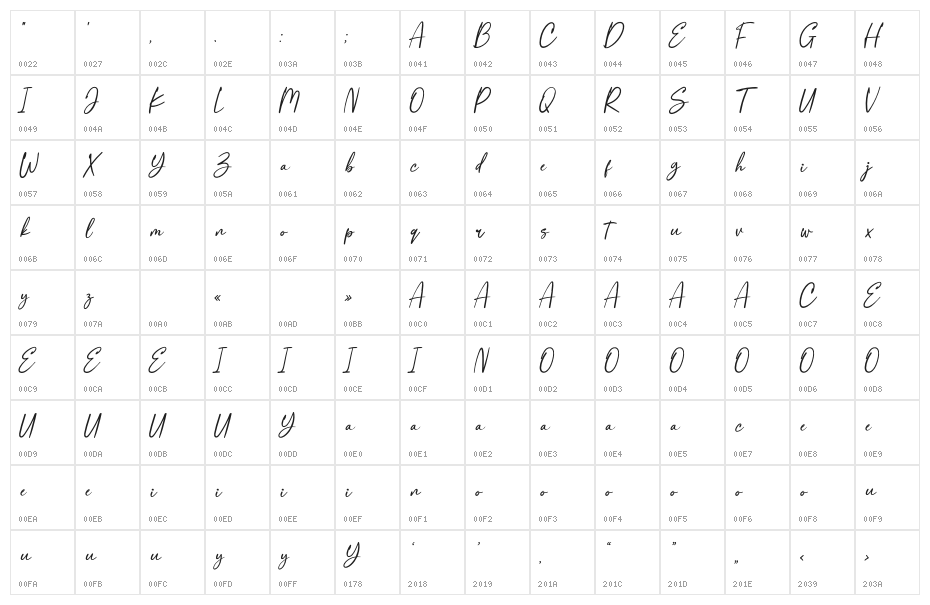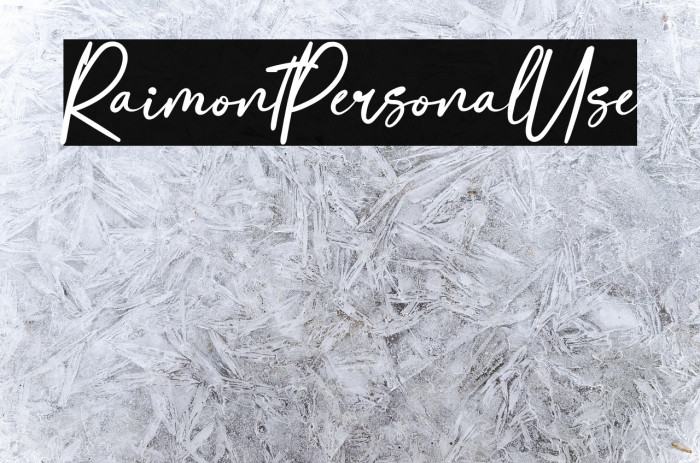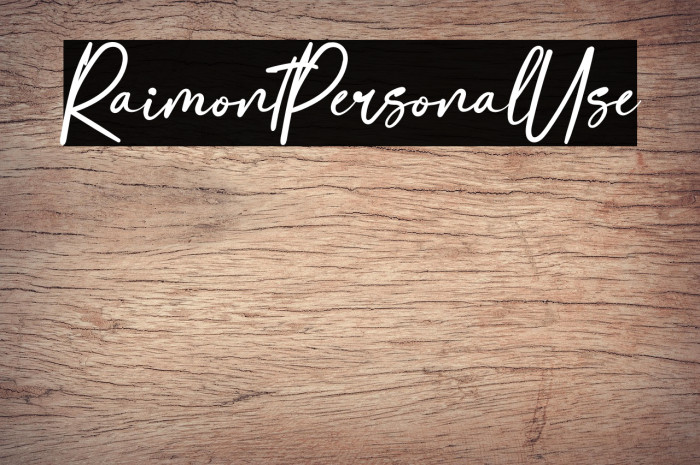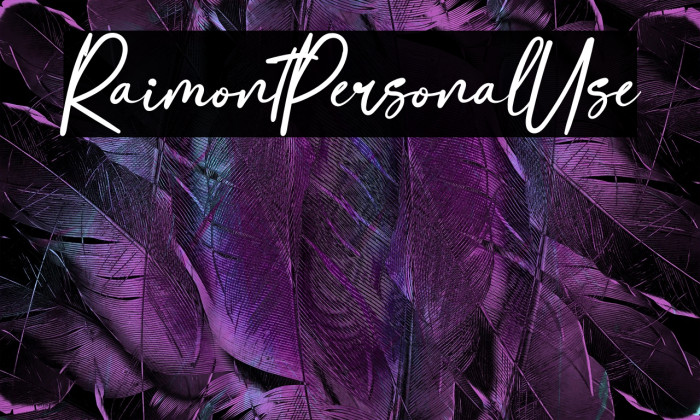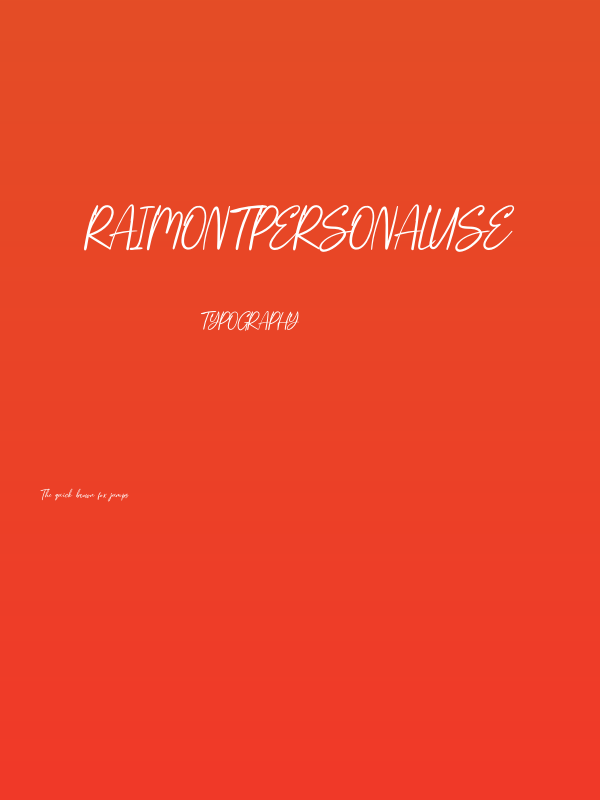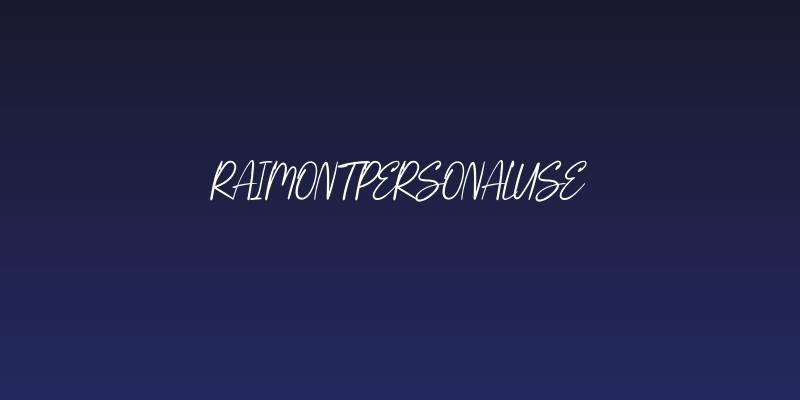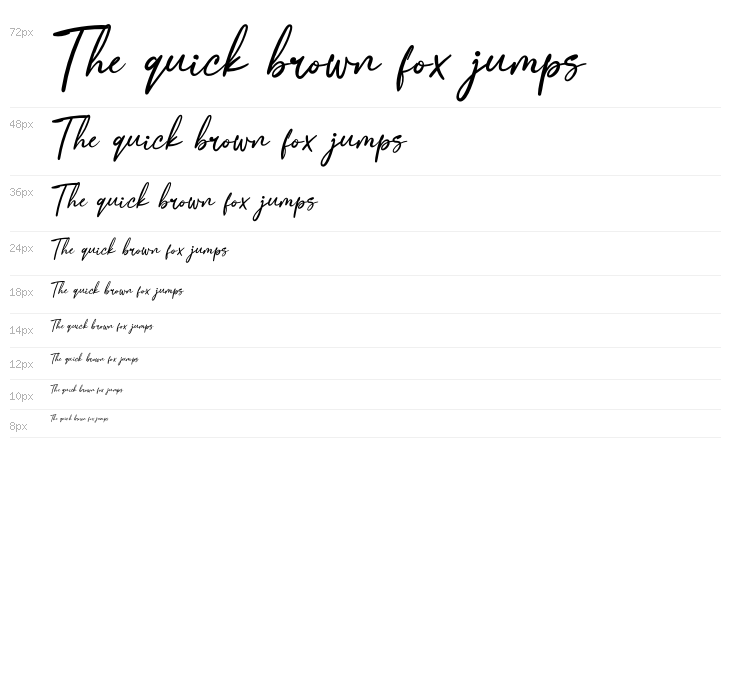
RaimontPersonalUse Font
RaimontPersonalUse Description
This font features a dynamic and fluid handwritten style, characterized by its elegant and flowing script. The letters are interconnected with smooth curves and a slight slant, giving it a personal and artistic touch. The uppercase letters are bold and prominent, while the lowercase letters maintain a consistent flow, enhancing readability. The font's overall appearance is both sophisticated and casual, making it versatile for various design needs. It lacks special characters and numbers, focusing solely on the alphabet, which emphasizes its use in decorative and personalized projects.